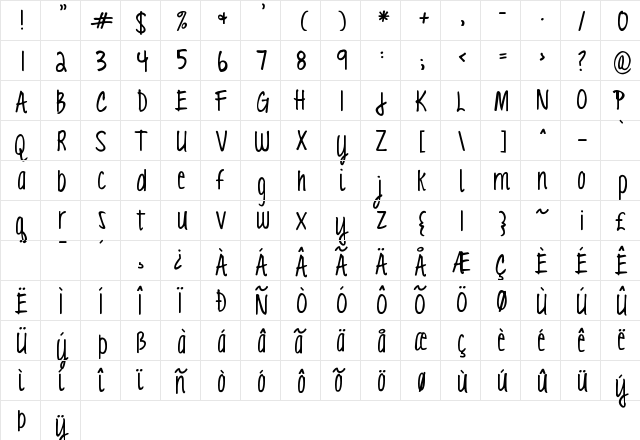
KG Love You Through It 3 Regular
| Foundry | Kimberly Geswein |
| Designer | Kimberly Geswein |
Design Context for KG Love You Through It 3 Typeface
KG Love You Through It 3 embraces imperfection — its rough, textured character adds raw authenticity to designs that want to feel lived-in and unconventional.
Suited to punk-influenced zines, underground music branding, streetwear, and raw, anti-corporate design.
Pro Tip: Pair KG Love You Through It 3 with intentionally raw or lo-fi design elements. Fighting against it with overly polished surroundings will undermine its personality.